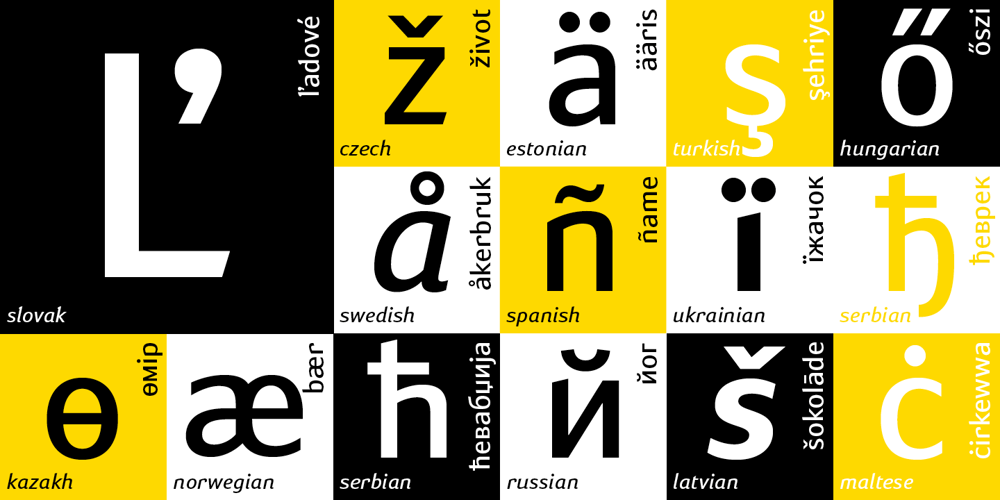
Susan Sans Font Family was designed by Manvel Shmavonyan and published by ParaType. Susan Sans contains 4 styles and family package options. An original text and display type family was designed for ParaType in 2008 by Manvel Shmavonyan to be used together with Susan and Susan Classic, earlier released type families by the same author. This is a low-contrast sans serif font with open letterforms. Its shape is distinguished by rounded upper parts of lower case. Susan, Susan Classic and Susan Sans forms a super family coordinated on weight, style and proportions. Susan Sans is well suited for short and middle range text composing as well as for use in advertising and display typography.